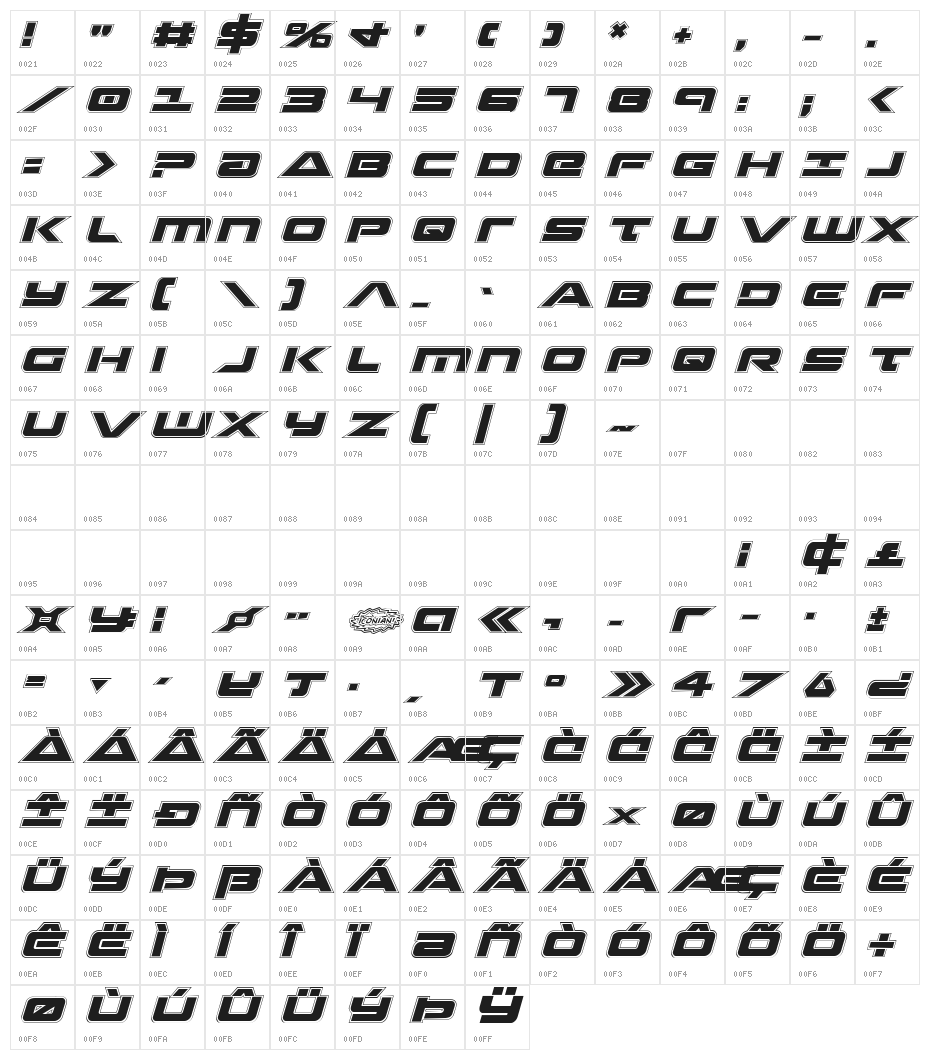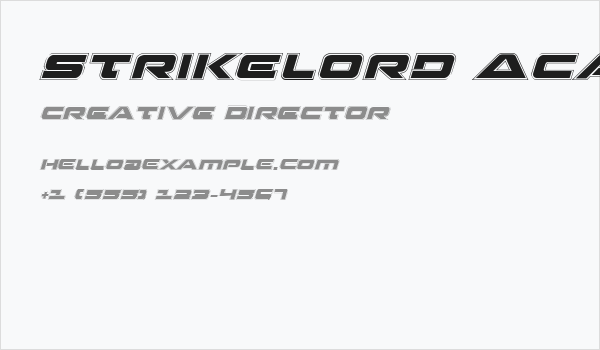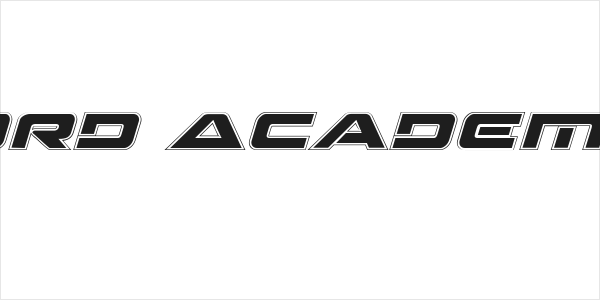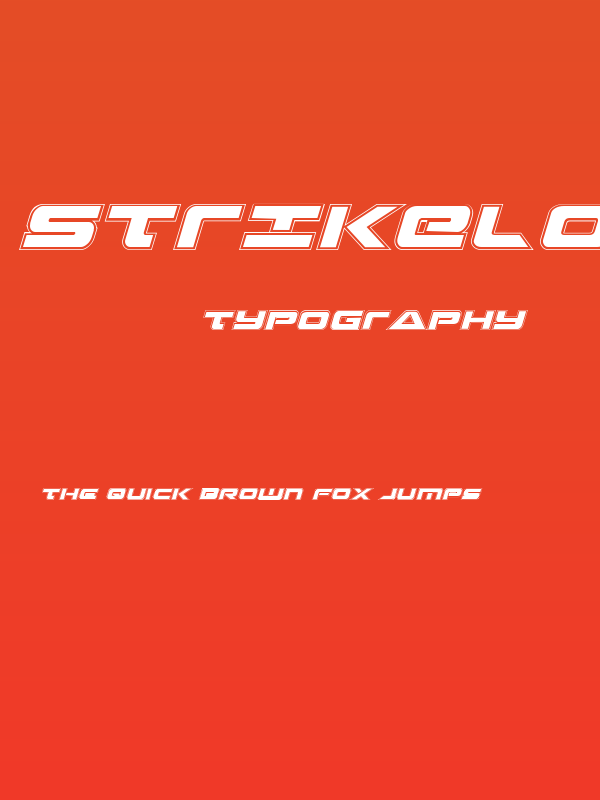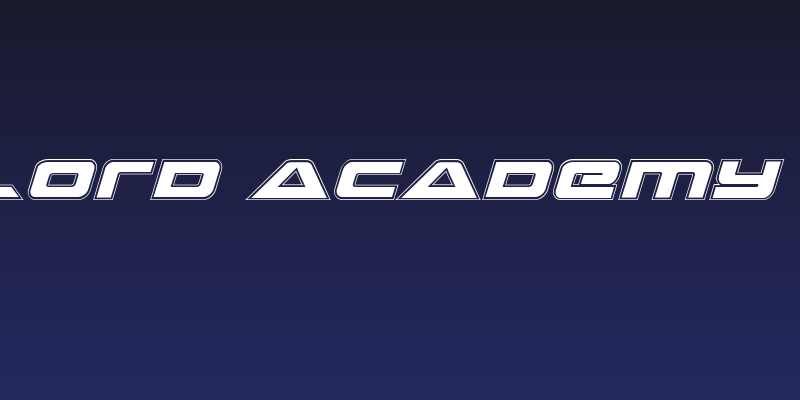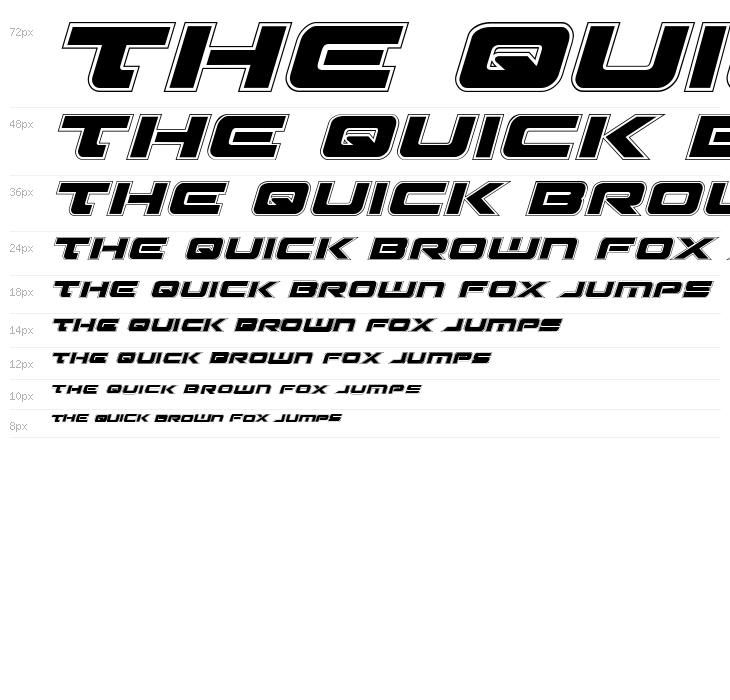
Strikelord Academy Italic Font
Strikelord Academy Italic Description
This font features a bold, futuristic design with a distinct italic slant, giving it a dynamic and energetic appearance. The characters are outlined with a double-layer effect, adding depth and a three-dimensional feel. The angular and geometric shapes of the letters convey a sense of speed and modernity, making it ideal for projects that require a strong visual impact. The uppercase and lowercase letters maintain a consistent style, with sharp edges and clean lines. The numerals and special characters are designed to match the overall aesthetic, ensuring a cohesive look across all text elements.
| Proposed Projects | Ideal for sports branding, video game titles, sci-fi movie posters, and tech-related logos. |